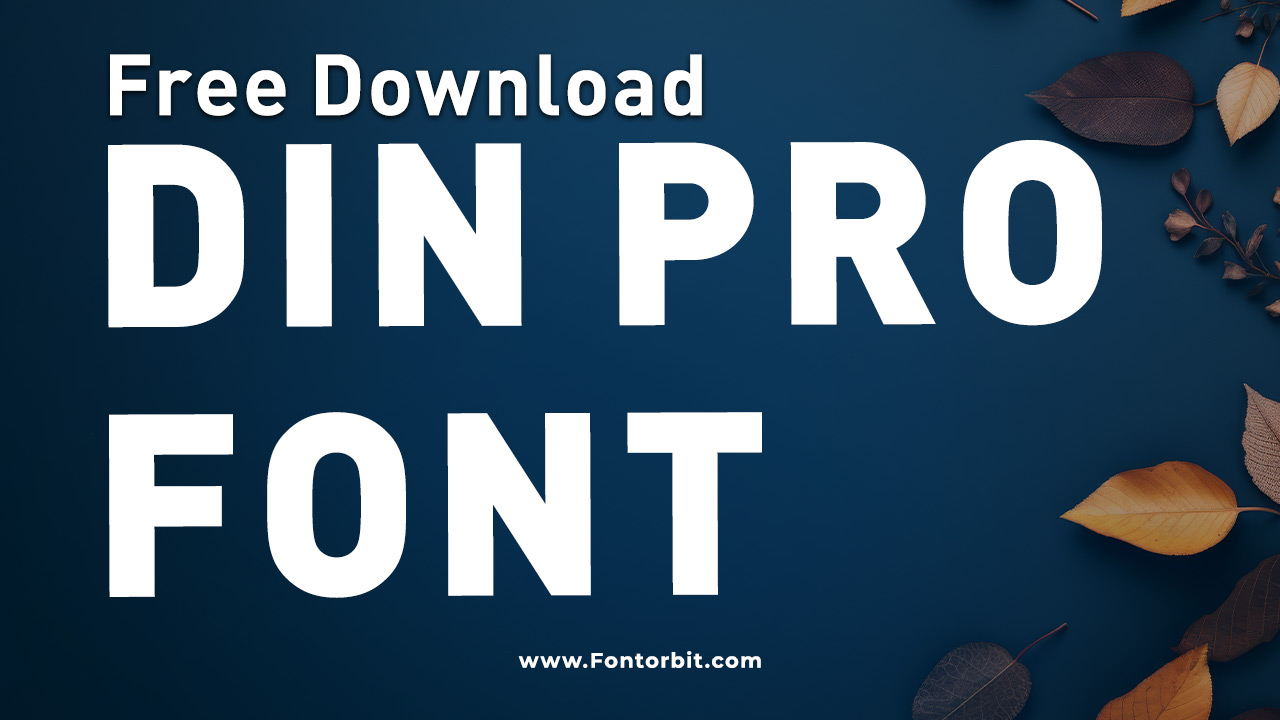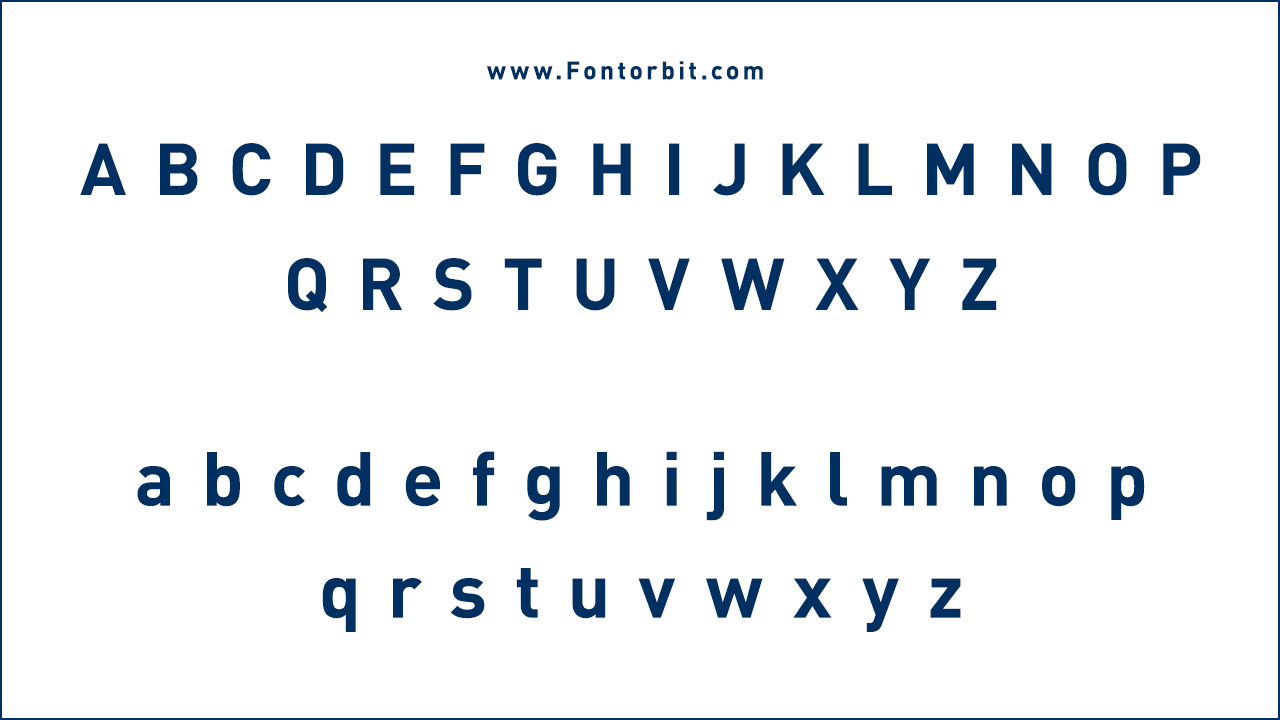
The DIN Pro Font, designed by Albert Jan Pool, is a sleek and modern sans-serif typeface known for its clean lines and professional appearance. Available for free personal use, this font is celebrated for its versatility and readability.
The legibility and functionality of classic industrial typefaces inspire DIN Pro. This font is ideal for projects that require a contemporary yet timeless look.
DIN Pro Font is characterized by its minimalist and refined design, focusing on clarity and simplicity. It is available in various weights and styles, making it suitable for multiple design applications.
The DIN Pro Font’s clean and professional appearance makes it perfect for projects prioritizing readability and modern aesthetics. It is especially effective for:
- Corporate Branding
- Web Design and Development
- Digital Marketing Materials
- Editorial and Magazine Design
- Business Cards
- Stationery
- Presentations
- Reports
- Wayfinding
- Packaging
- Product Labels
DIN Pro is widely used in various professional settings due to its clear and straightforward design. Numerous brands and companies utilize it for their corporate identities, enhancing their visual communication with a sense of modernity and professionalism. Its legibility makes it a popular choice for signage, where clarity is paramount, as well as digital interfaces and websites that demand a sleek and user-friendly font.
1.What Are The Limitations Of The DIN Pro Font In Digital Design?
DIN Pro Font’s limitations in digital design are minimal. However, its straightforward design might not suit projects that require a more expressive or decorative typeface.
2.What Makes DIN Pro Font Unique Compared To Other Fonts?
DIN Pro Font’s uniqueness lies in its clarity, simplicity, and modern aesthetics. Its roots in industrial design lend it a sense of functionality and reliability, making it stand out in corporate and professional settings.
3.What Are The Popular Uses Of DIN Pro Font?
DIN Pro Font is popular for corporate branding, editorial design, web interfaces, and signage due to its readability and clean, modern lines.
4.What Are The Design Principles Behind DIN Pro Font?
The design principles behind DIN Pro Font focus on functionality, legibility, and simplicity, resulting in a practical and aesthetically pleasing typeface for a wide range of applications.